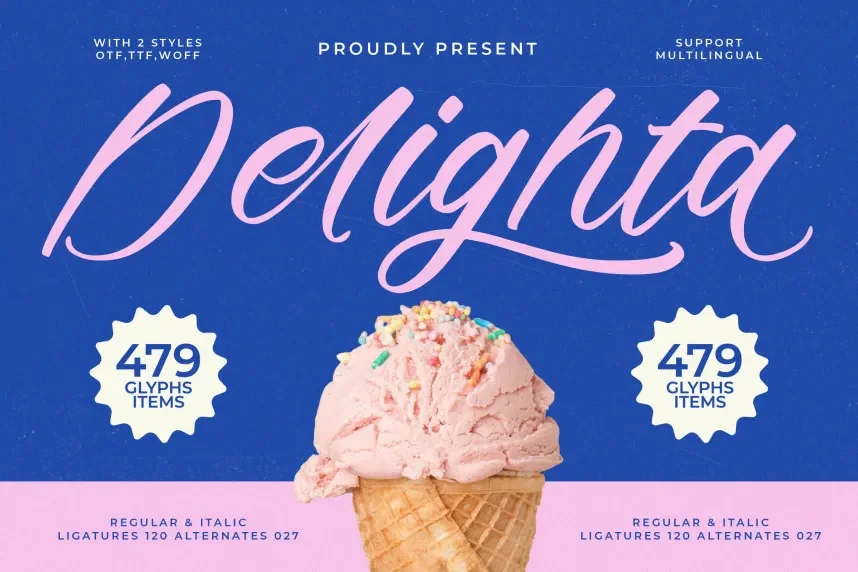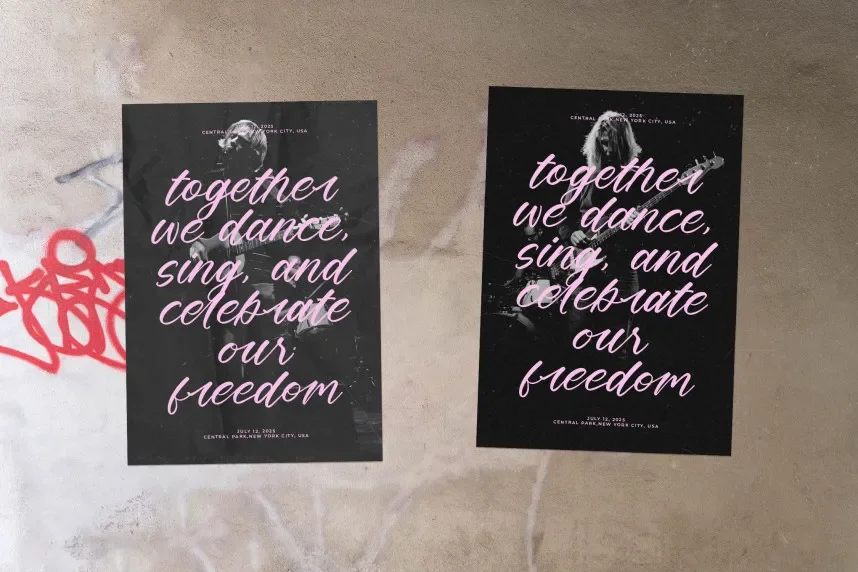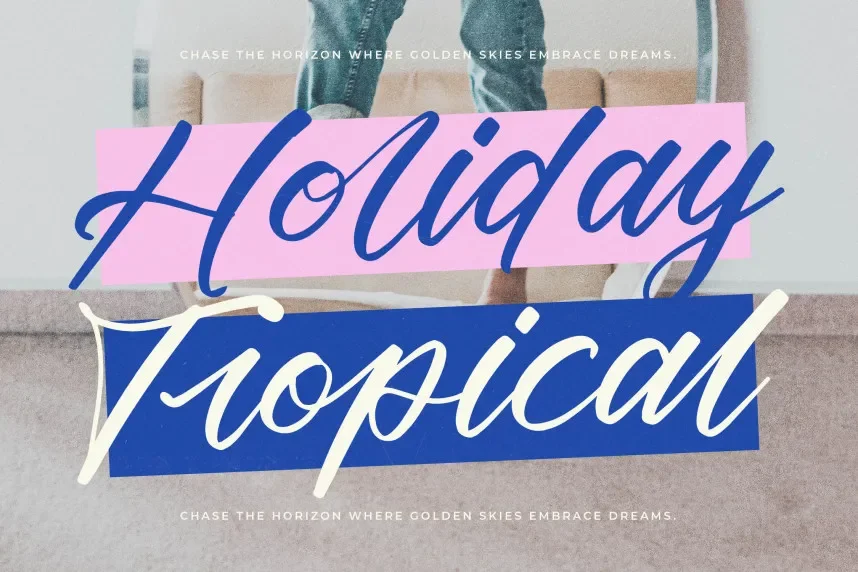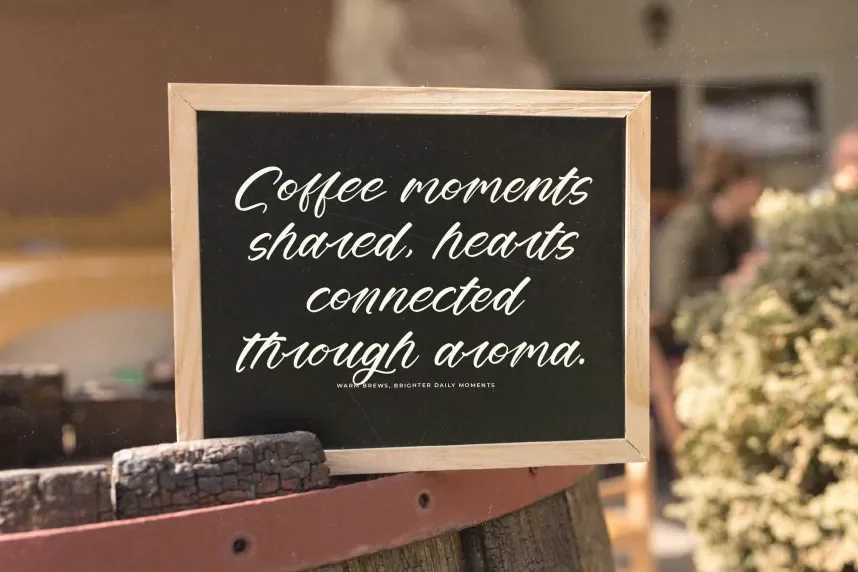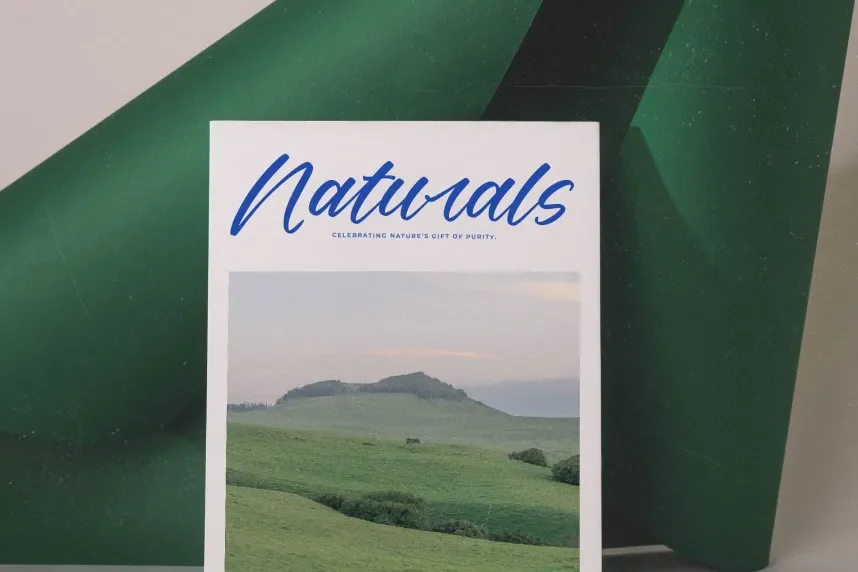
Delighta Font is a modern handwritten typeface designed for clarity and a natural writing flow. Designers often need handwritten fonts that feel personal but remain readable across screens. Delighta meets that need with consistent stroke rhythm and smooth curves.
This font belongs to the handwritten script category. Its letterforms feature rounded shapes, moderate stroke contrast, and stable baselines. Connections between letters are fluid without becoming overly decorative, which improves readability in digital content.
Delighta is suitable for branding, wedding invitations, greeting cards, social media captions, and personal projects. It works best in short-to-medium text lengths. Designers often pair it with a simple sans-serif font for paragraphs or supporting text.